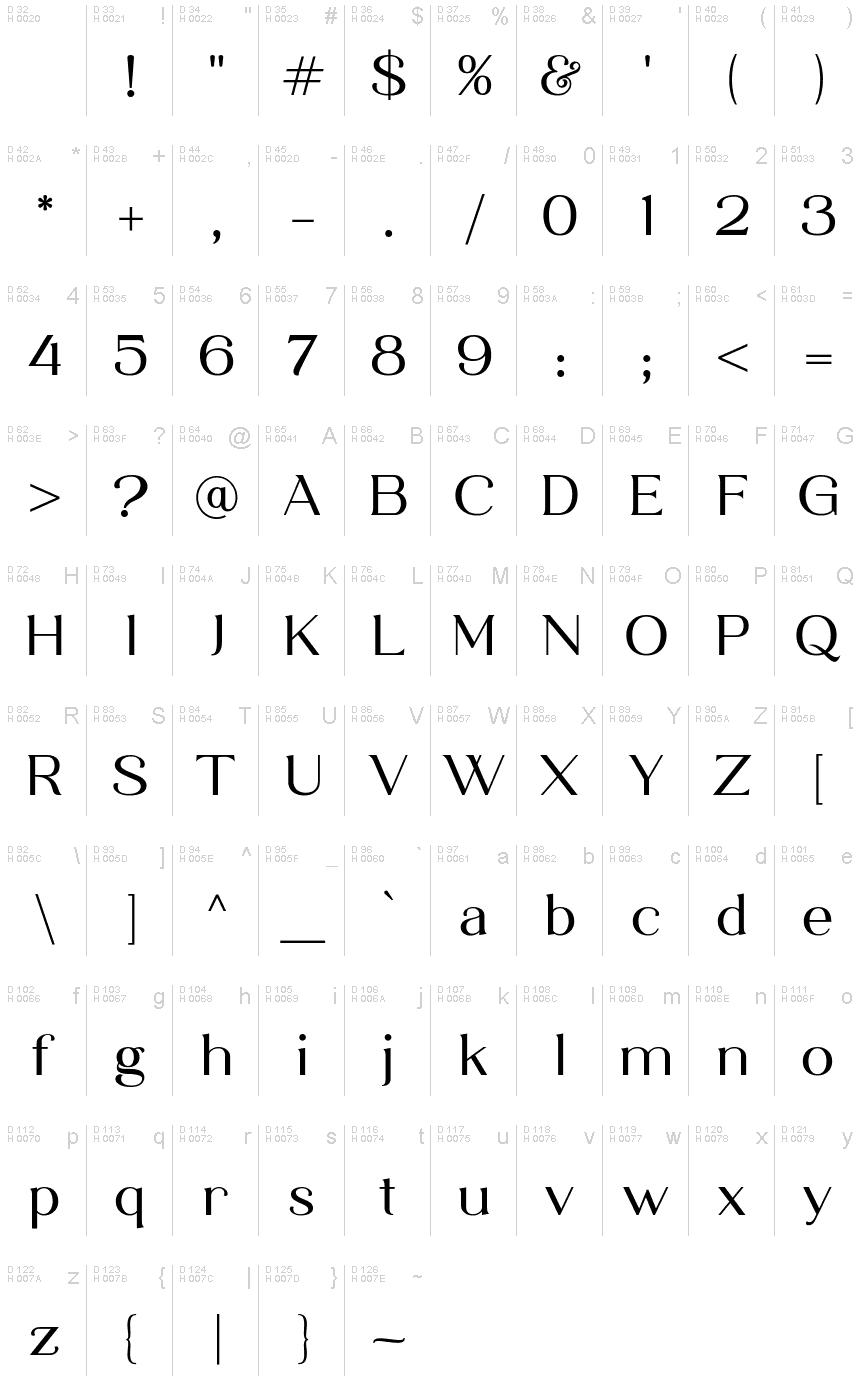
Avegas Royale Bold
Avegas Royale Bold, a distinguished member of the Avegas Royale font family, presents a compelling blend of classic charm and contemporary flair. Crafted by the talented Java Pep, this serif font exudes sophistication with its bold strokes and refined curves, offering an aesthetic that is both luxurious and assertive.
The robust letterforms of Avegas Royale Bold are designed to capture attention, making it an excellent choice for headlines and titles where impact is key. Its serifs add a touch of elegance to each character, suggesting a sense of tradition without compromising on modernity. This balance ensures that Avegas Royale Bold stands out in print and digital mediums alike.
With its versatile nature, Avegas Royale Bold is well-suited for branding projects, editorial work, and any creative endeavor seeking a typeface with presence. Whether used for an upscale restaurant menu or the cover of a fashion magazine, this font's charismatic personality can elevate the visual narrative of your project to new heights.